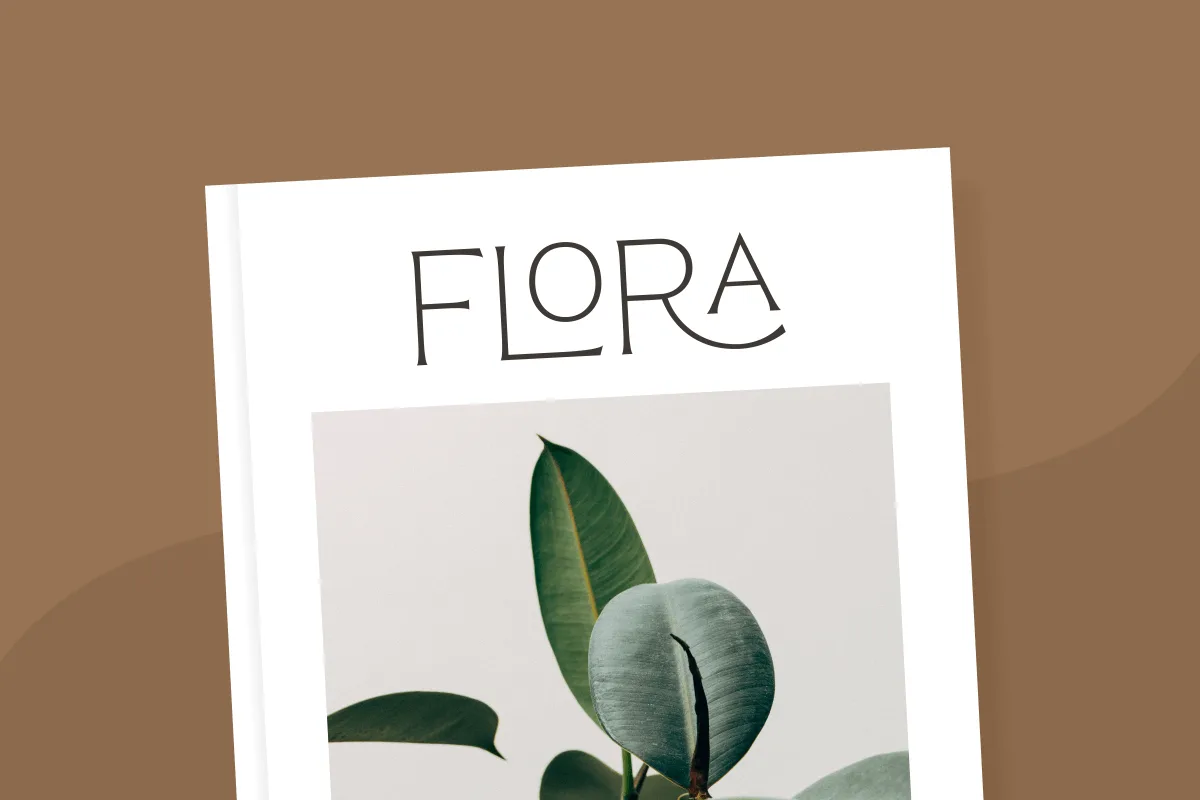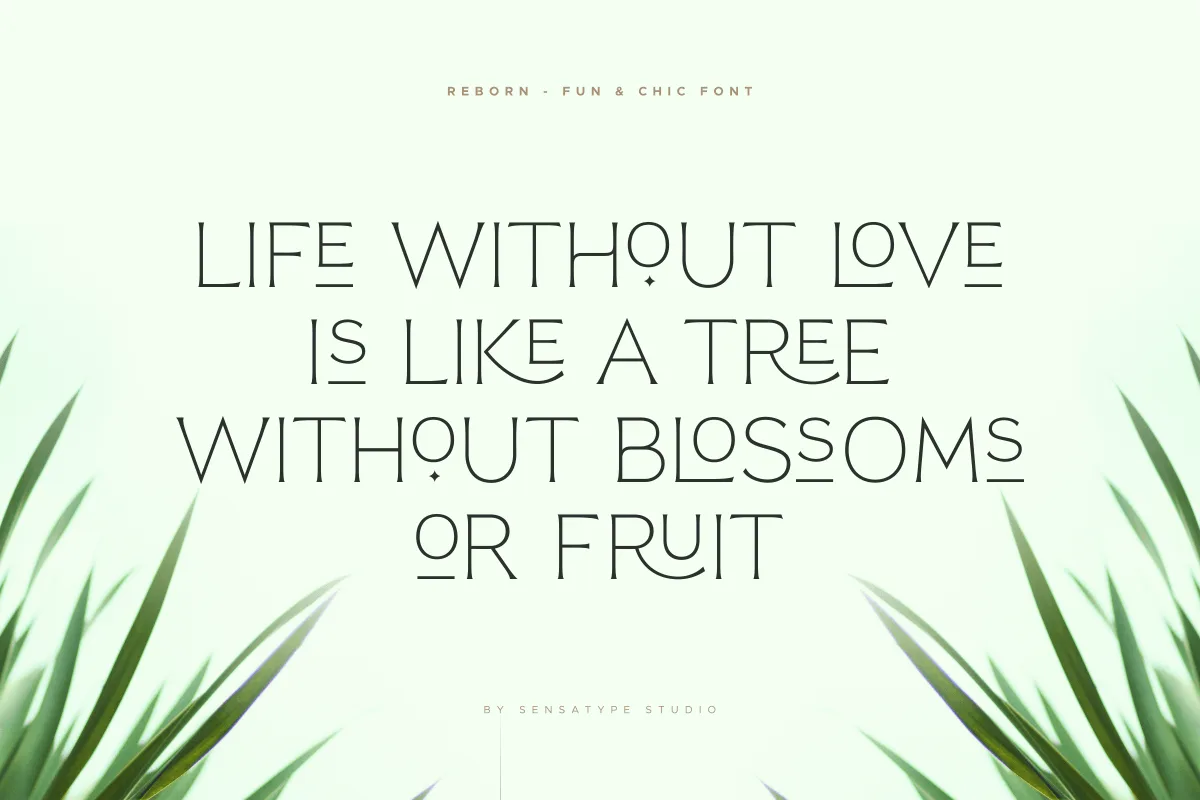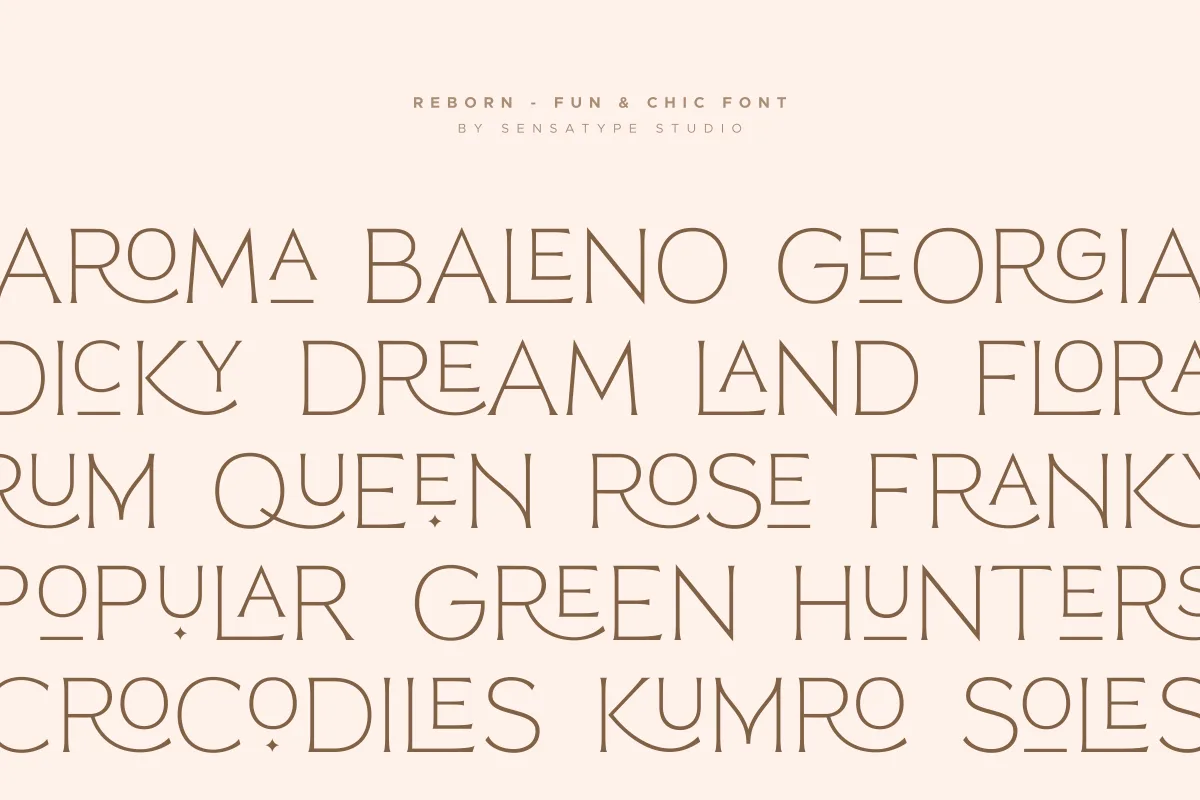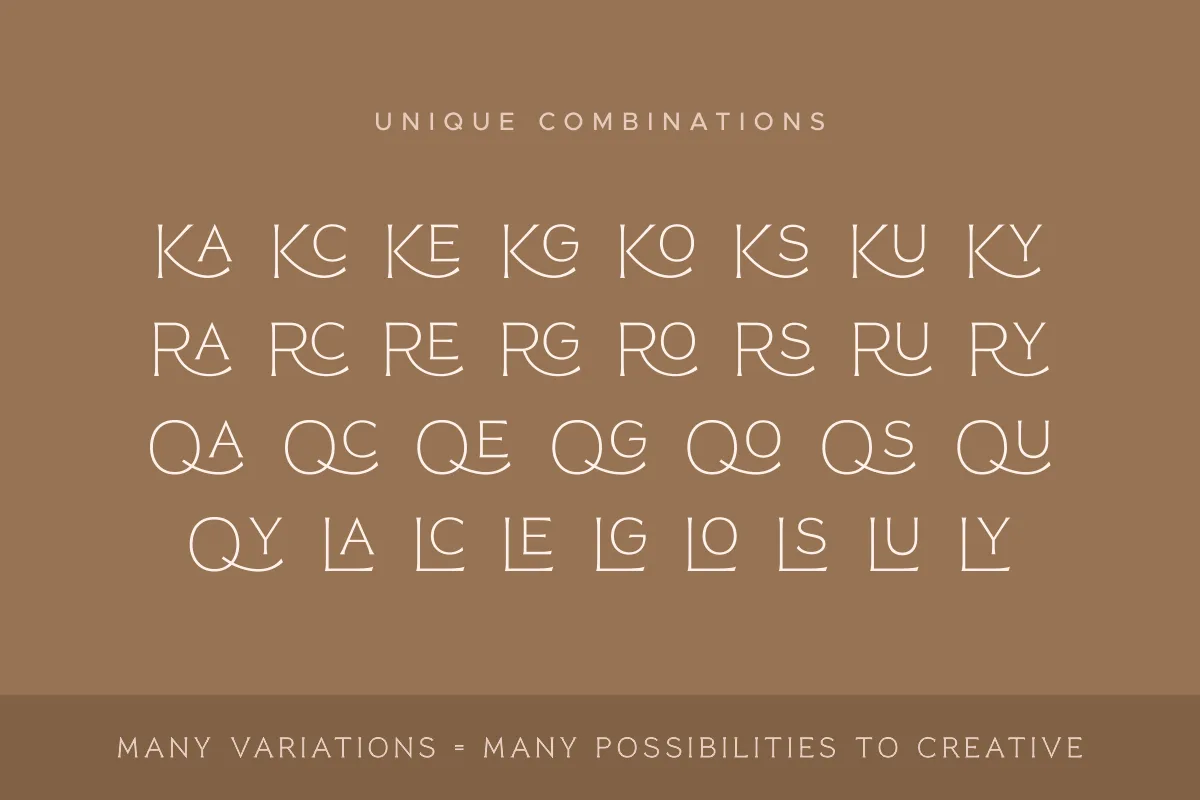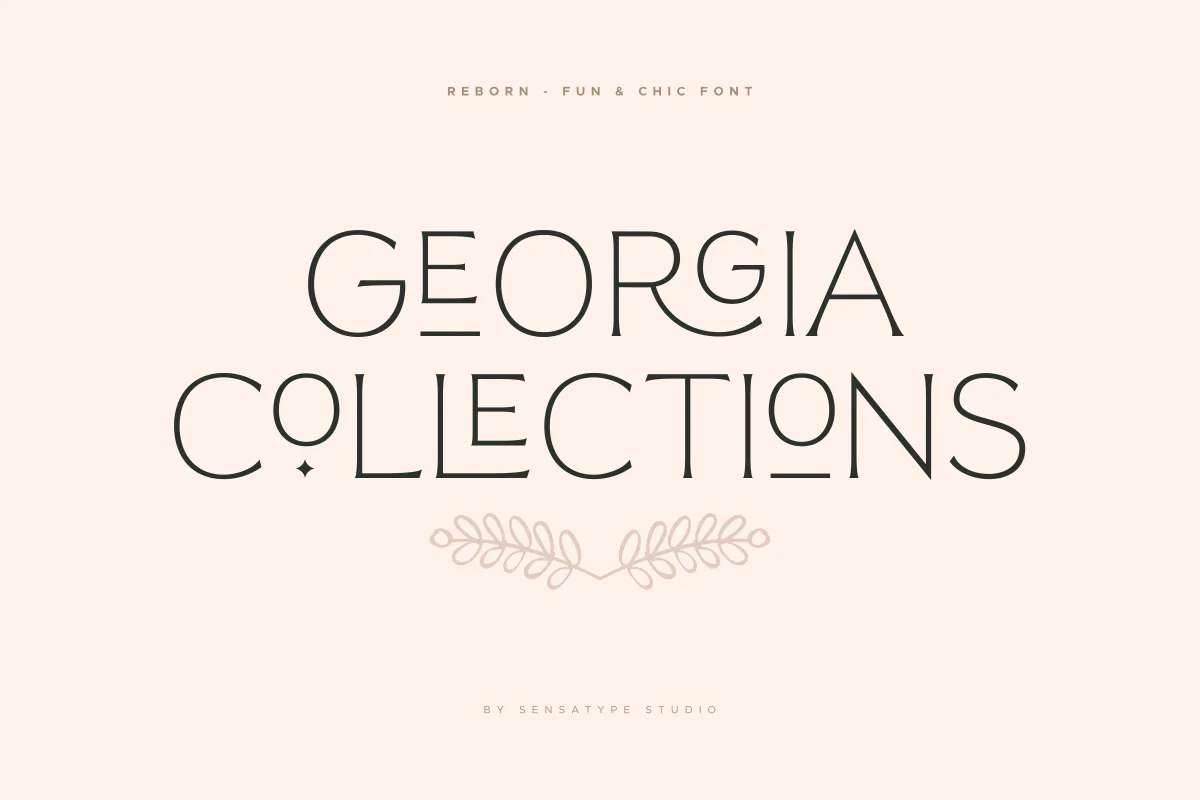
Reborn is a modern and chic font for brand and logo design with a ligature that is easy to use for beginners and ready to use on any software that supports the Opentype. Perfect for editorial projects, logo design, clothing branding, product packaging, magazine headers, or simply as a stylish text overlay to any background image.
- uppercase and lowercase letters
- multilingual symbols
- numerals
- punctuation
- ligatures